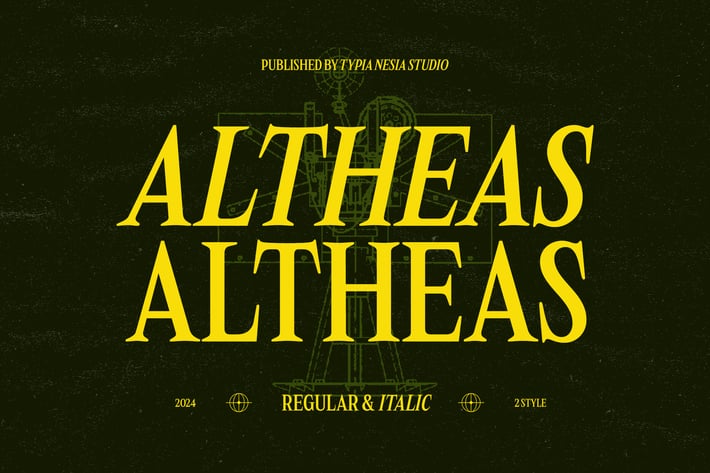
Altheas - Regular and Italic Retro 90s Serif Font
Altheas - Regular Italic Serif Font - Modern Elegance Classic Display Font
Altheas is a Regular Italic Serif Font that blends classic elegance with a touch of modern flair. Its italicized and graceful serif characters bring sophistication and fluidity to any design, making it ideal for projects that require a classic and timeless aesthetic. Such as branding, editorial design, book covers, wedding invitations, quotes, elegant product packaging, magazine covers, and any project to require a modern touch, and elegant classic. The font enhances the visual appeal of any project. Its versatile style ensures it looks stunning in both print and digital formats, providing a polished and sophisticated look to logos, headlines, and body text. Comes with a full set of uppercase and lowercase letters, punctuation, numerals, and alternate characters to support your creative needs. Additionally, it offers extensive multilingual support, making it a versatile choice for global applications. Designed with meticulous attention to detail, Altheas combines the timeless appeal of serif fonts with the graceful flow of italic styling, making it a reliable choice for designers looking to create elegant and captivating designs.